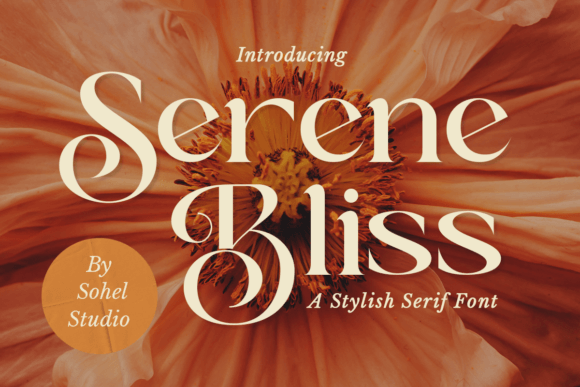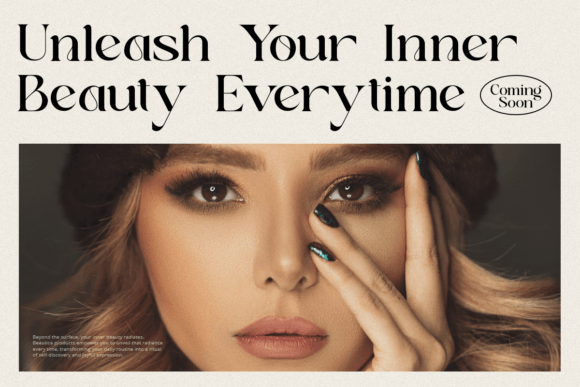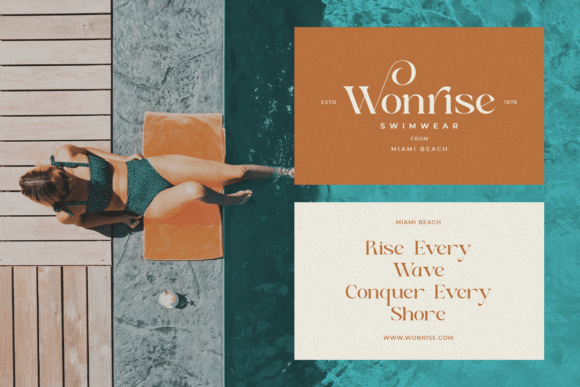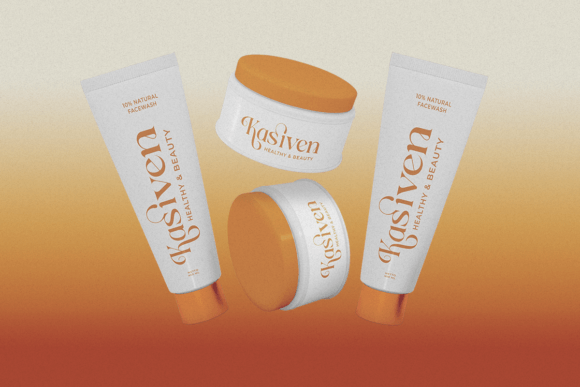
Serene Bliss Font
About the Serene Bliss Font
Add a touch of class to your work with the Serene Bliss Font, a truly exceptional typeface. Serene Bliss is unique as it can be used for a variety of design styles. It fits in wonderfully for free-spirited, boho designs and more classy editorial looks!
There are a lot of fun stylistic alternates available to use with this font. These letters are embedded into the font file and easily accessible in programs such as Photoshop and Illustrator.